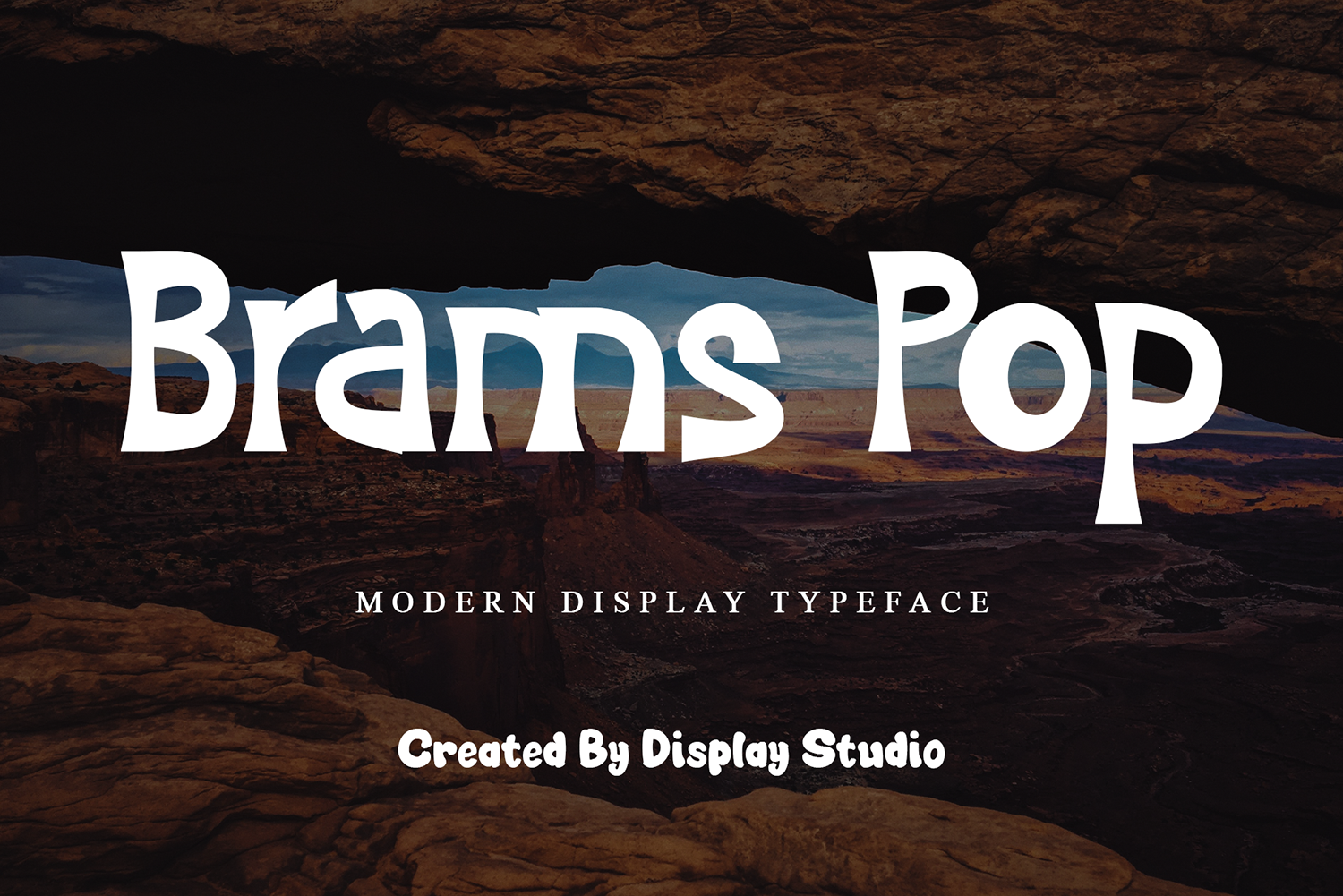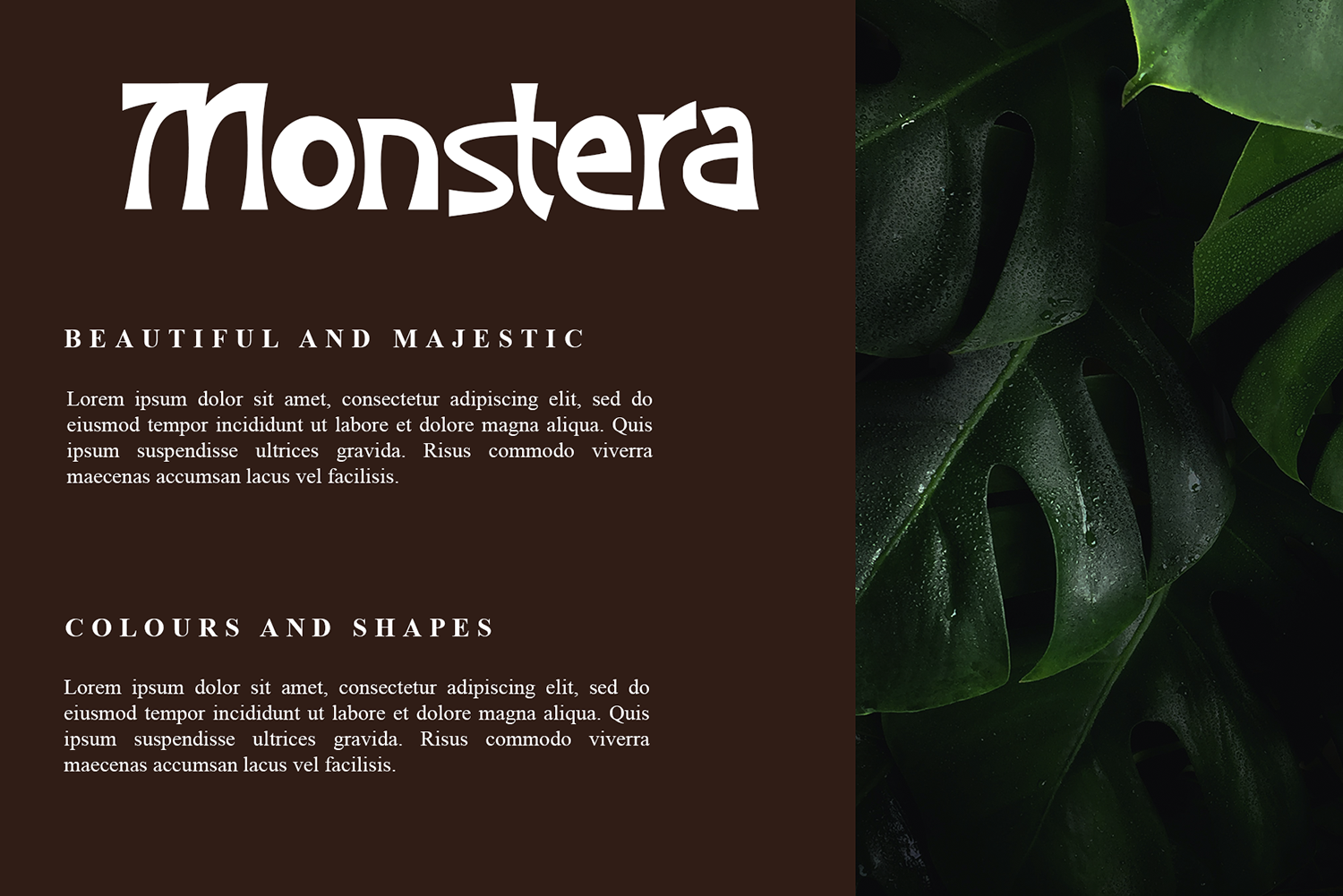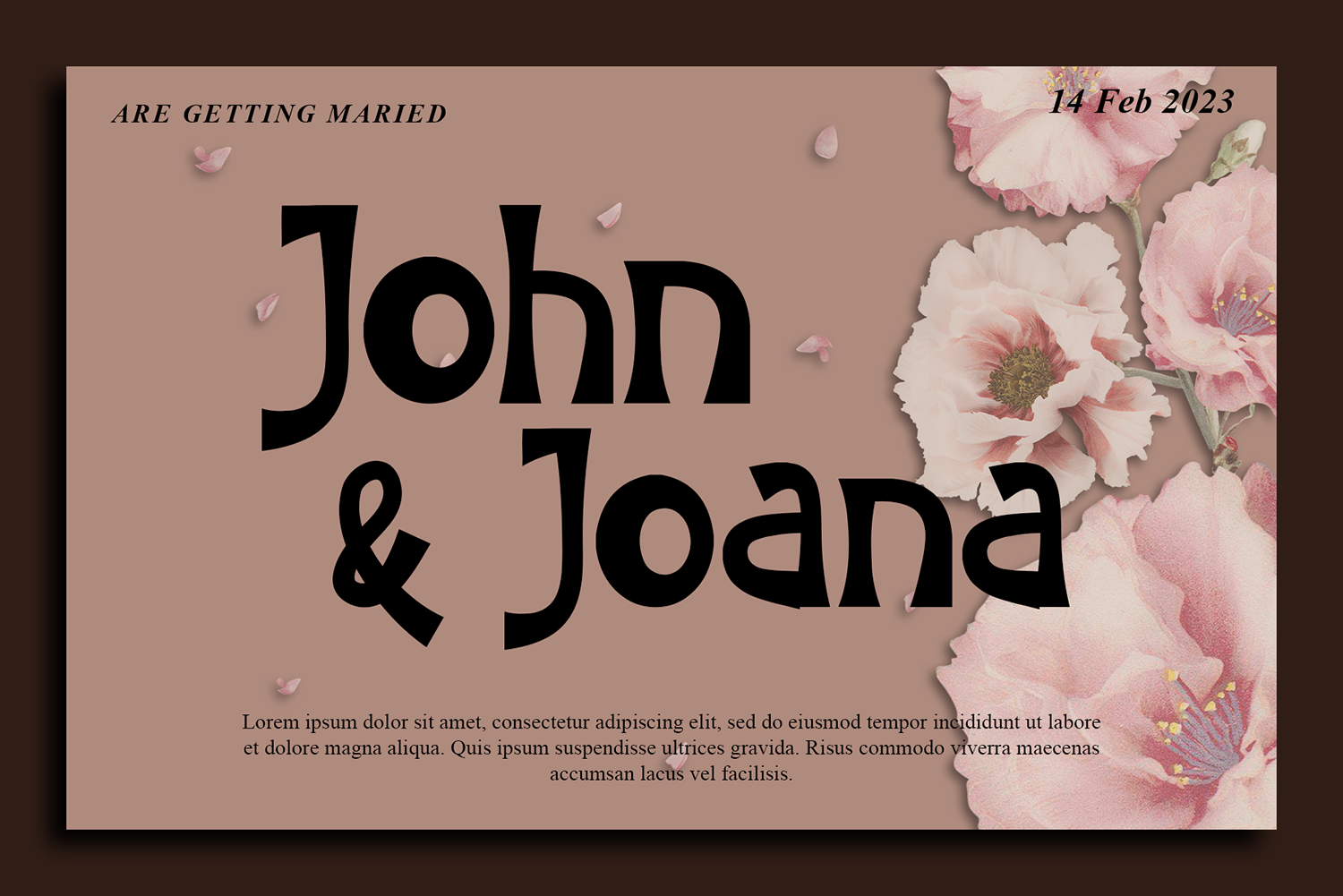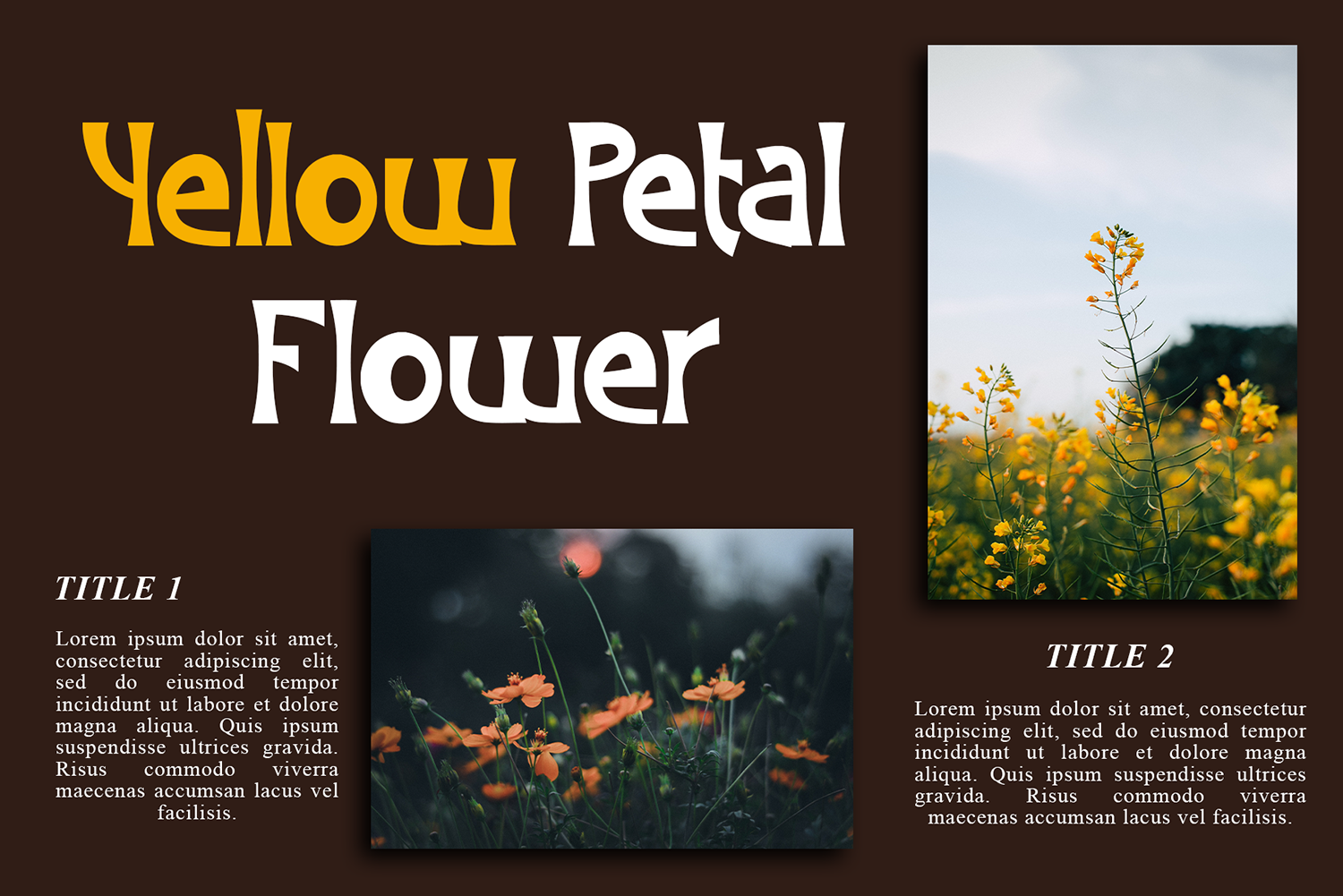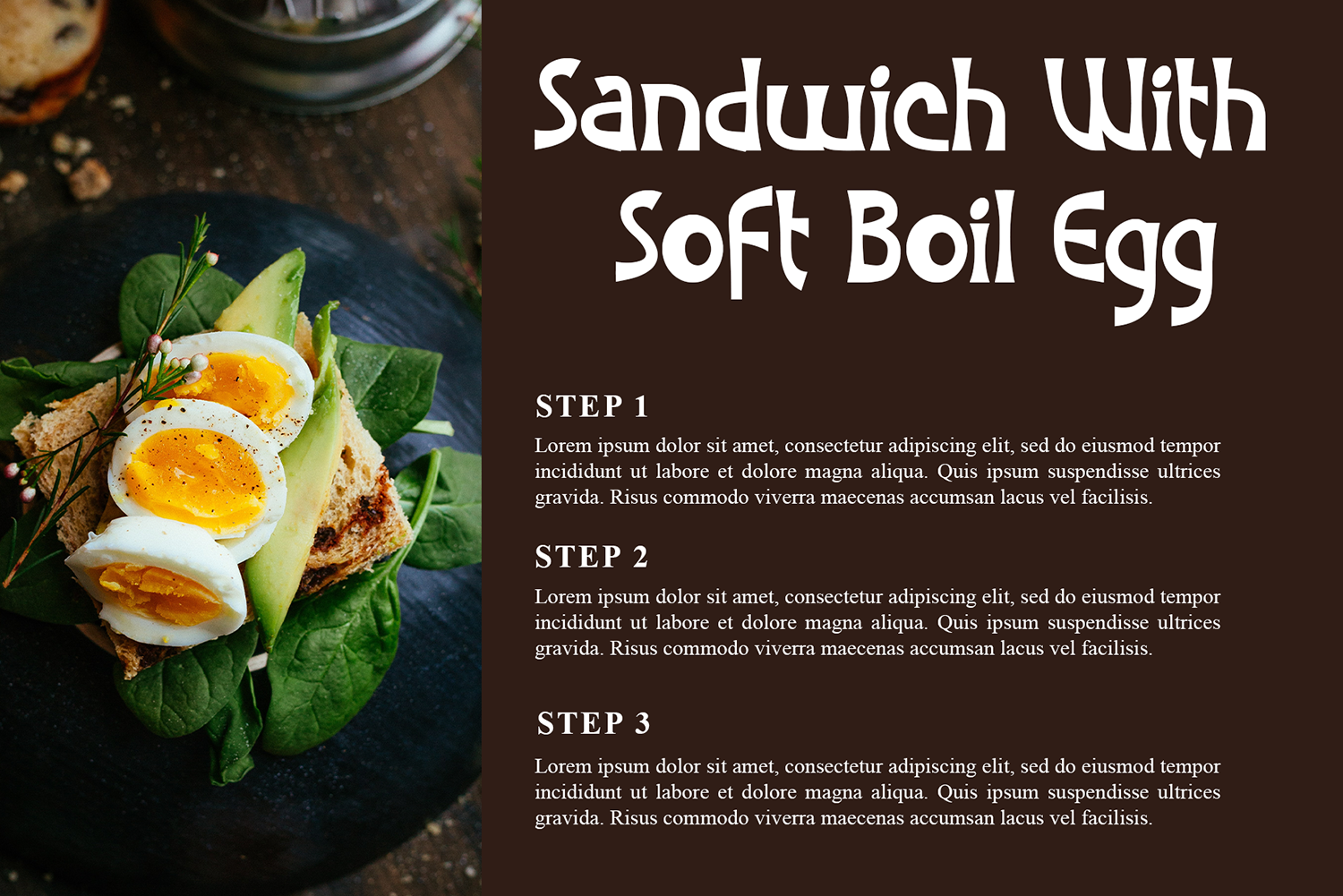
Brams Pop Free Font
Brams Pop Free Font showcases an alluring and up-to-the-minute display font. With its captivating presence and letters that boast distinctive shapes, this typeface seamlessly complements a diverse array of creative projects seeking a unique flourish. Its versatility and distinctiveness make it an ideal choice for a variety of design applications. This free typeface was designed by a talentedΒ Display Studio. If you like it don’t forget to check out the full version.